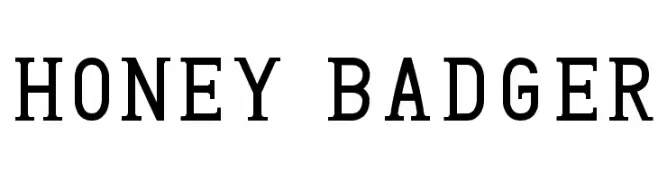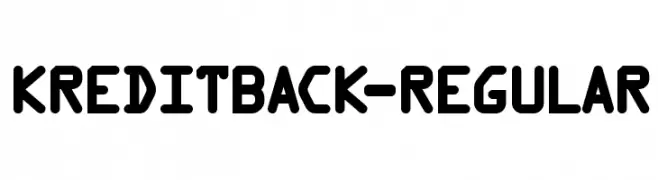
( N ! C E )
A bold, serif font with strong, classic lines and modern elegance.
( Satria Muchlis - www.facebook.com/triaChlis )
A bold, geometric font with rounded edges and tight spacing.
( Typodermic Fonts - Ray Larabie - www.typodermicfonts.com/ )
A bold, geometric font with a modern and industrial aesthetic.
( Vladimir Nikolic - www.coroflot.com/vladimirnikolic )
A bold, blocky font with rounded corners and uniform thickness.
( Vladimir Nikolic - www.coroflot.com/vladimirnikolic )
A bold, geometric font with characters enclosed in grid-like blocks, featuring circular elements.
( Woodcutter - woodcutter Manero - www.woodcutter.es )
A bold, vintage-style serif font with thick, block-like serifs and a strong presence.
( Zac Neulieb - www.zacneulieb.com )
A bold slab serif font with strong, block-like serifs and a robust presence.
( Zetafonts - www.zetafonts.com )
A bold, impactful typeface with thick, uniform strokes and a modern touch.
( Zetafonts - www.zetafonts.com )
A bold, italic serif font with a dynamic and commanding presence.
A bold, futuristic font with a dotted texture and thick outlines.